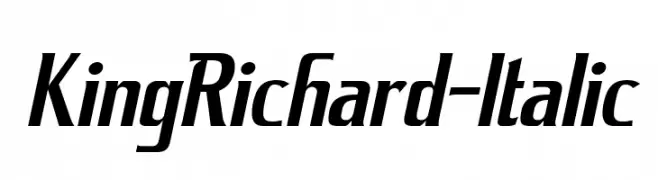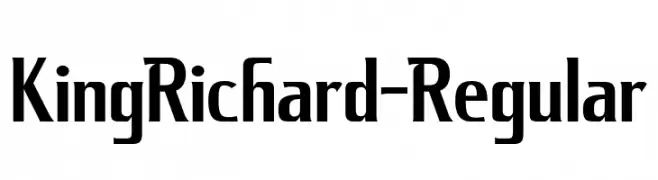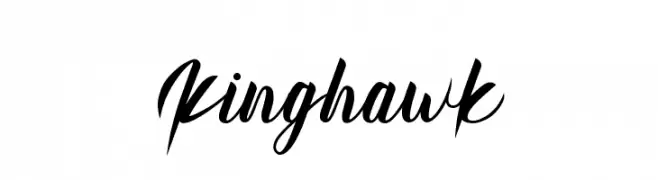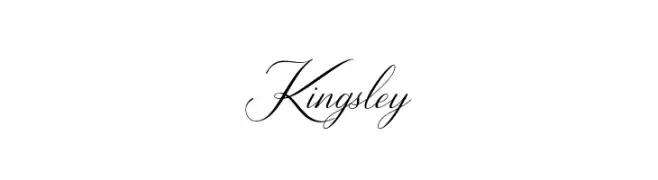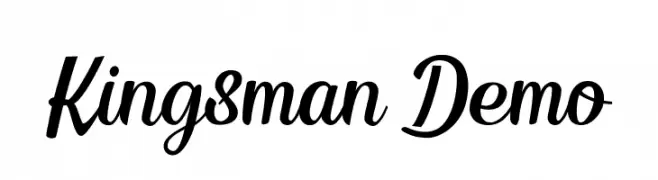
A dynamic and energetic script font with fluid, angular strokes.
A bold, dramatic font with sharp, angular edges and a distressed look.
A bold, distressed font with a grungy, hand-painted appearance.
A sleek, modern italic font with dynamic, elongated letterforms.
A bold, modern font with a strong and authoritative presence.
An ornate, calligraphy-inspired font with bold, decorative elements.
A bold, graffiti-inspired font with dynamic and edgy characters.
An elegant script font with flowing, cursive style and decorative swashes.
A fluid and elegant cursive font with a handwritten appearance.
A sophisticated and elegant script font with flowing, interconnected letters.